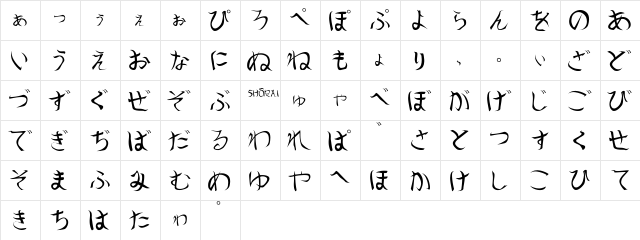
Shoraei Regular
Design Context for Shoraei Typeface
Shoraei is a composed and adaptable typeface that performs quietly and consistently across a wide range of design contexts.